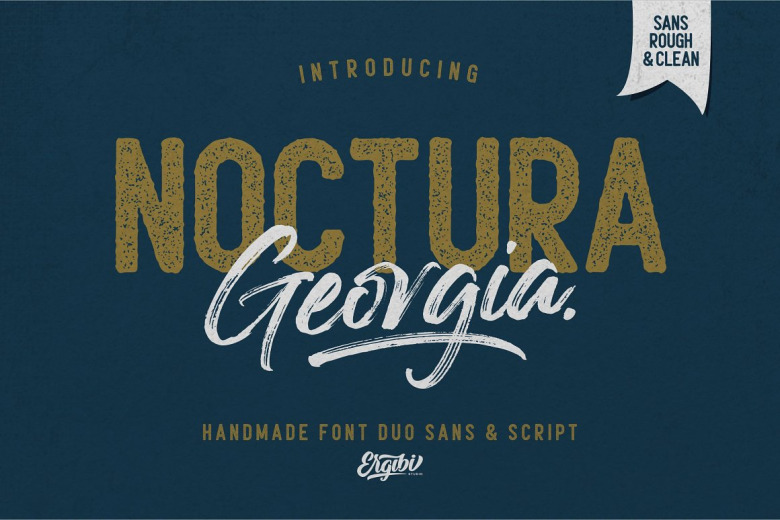
Noctura Georgia Font
Noctura Georgia is a real handwriting brush effect and sans, which has quite real view. It’s a kind of font is based on urban style graph and brand identified in many ways that would be very suitable for your new assignment. And which Noctura Georgia is just right for Logo- and Branding, Photography, Invitations, Watermarks, Advertising, Product Packaging, Stationery, Wedding Designs, Displays, anything destined to be hand-written.
Noctura Georgia Font Duo